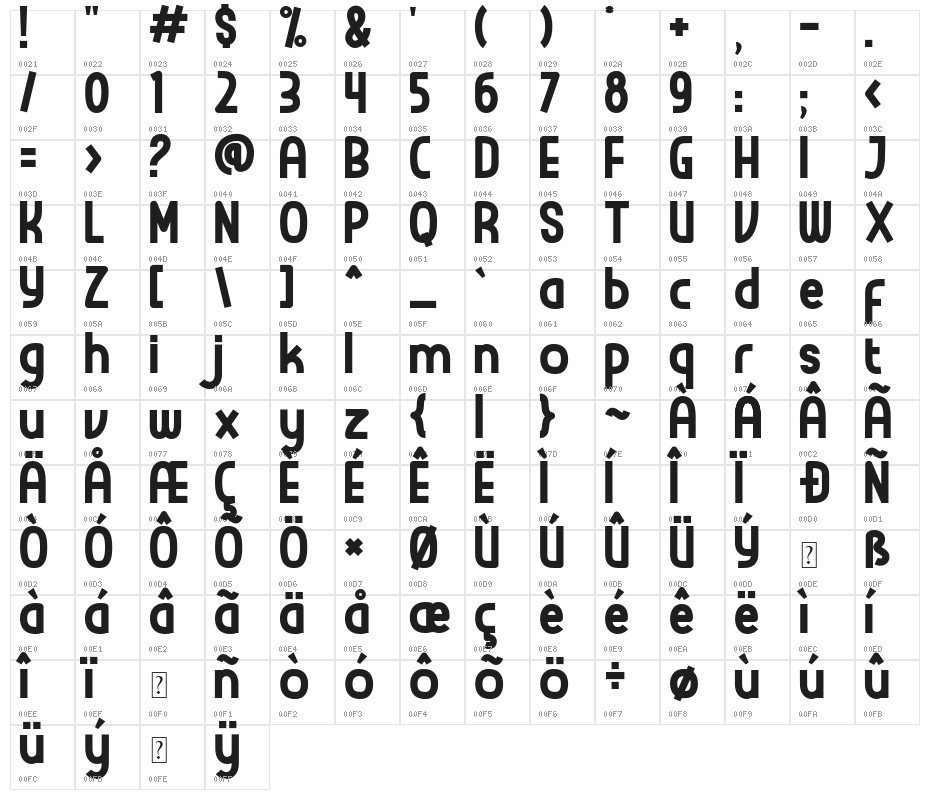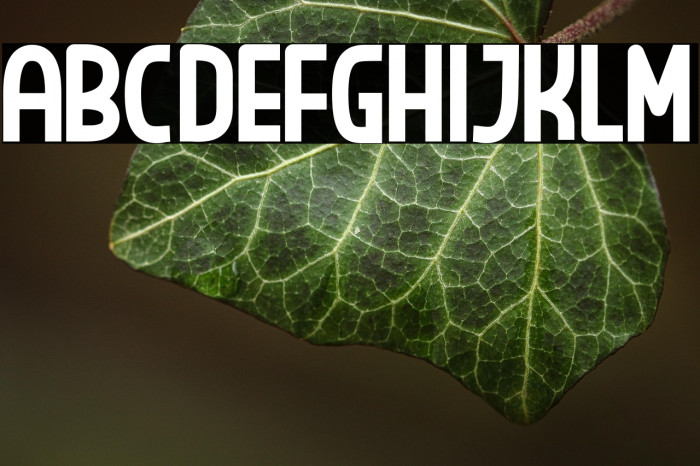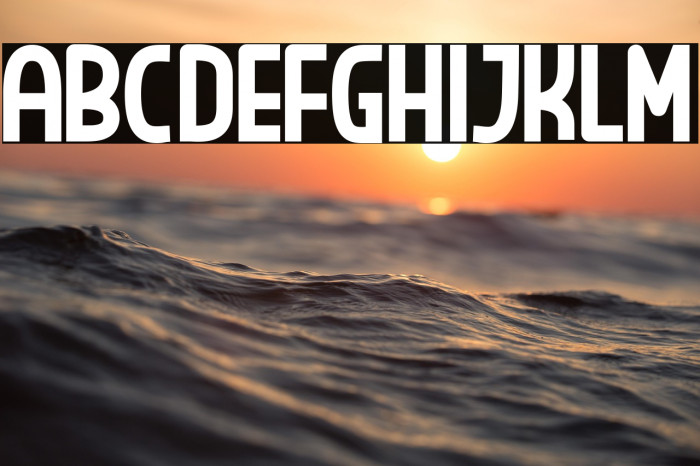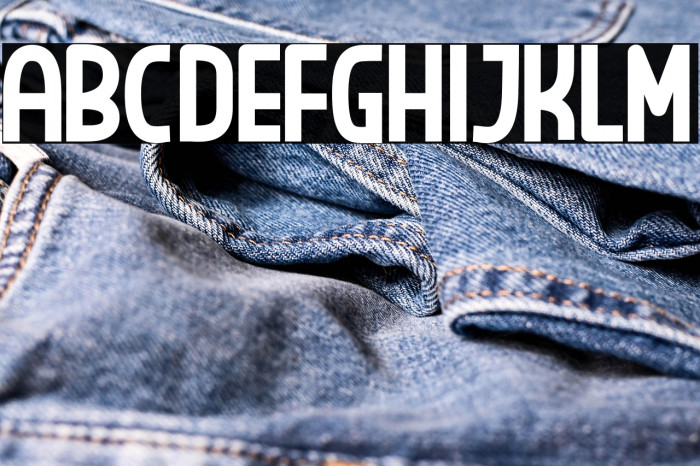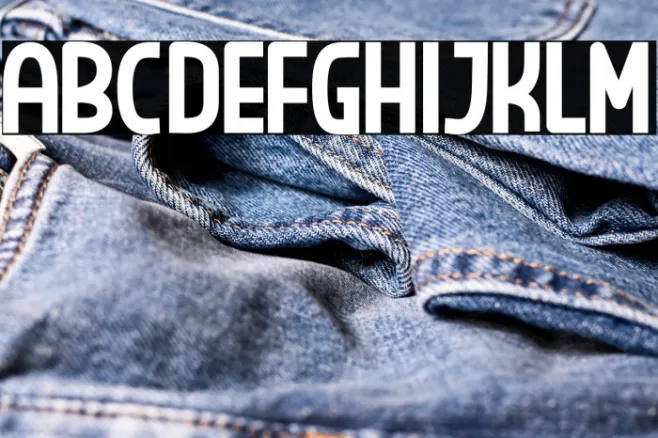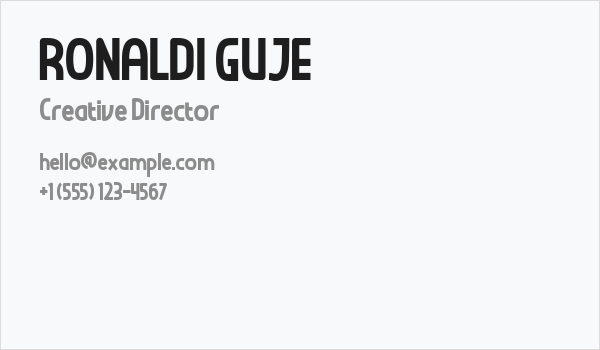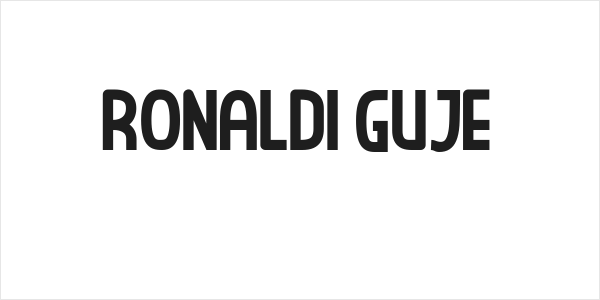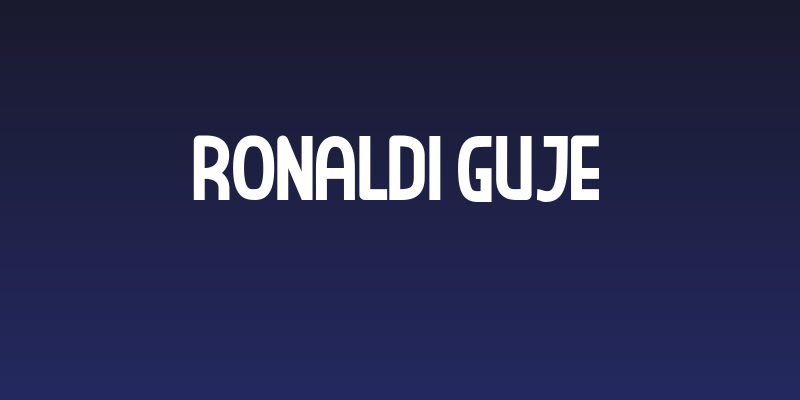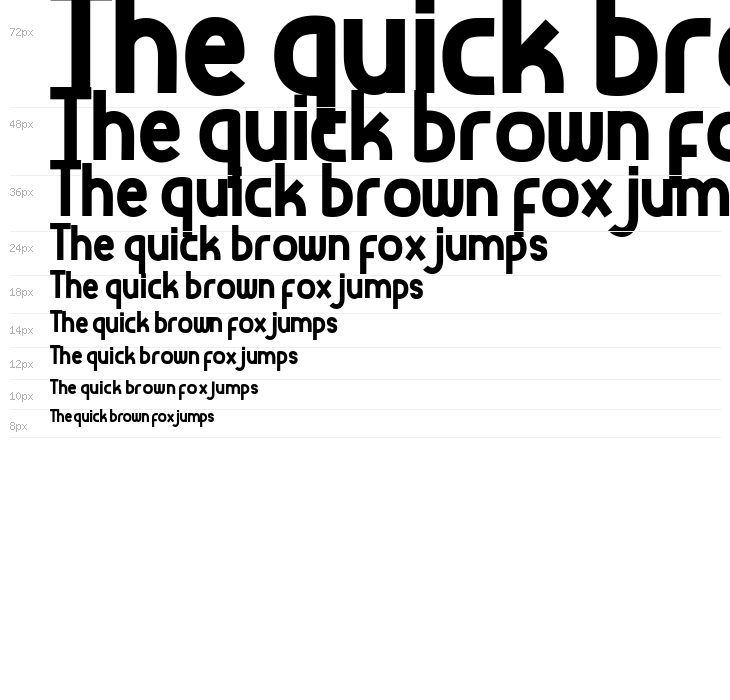
RONALDI GUJE Font
RONALDI GUJE Description
This font features a bold and modern design with a strong geometric structure. The uppercase letters are tall and slightly condensed, giving a sense of authority and presence. The lowercase letters maintain a consistent style, with rounded edges that soften the overall appearance. Numbers are clear and legible, matching the boldness of the alphabet characters. Special characters are well-integrated, ensuring versatility in various design contexts. The font's uniform stroke width and minimal contrast contribute to its clean and contemporary look, making it suitable for a wide range of applications.
| Proposed Projects | Ideal for branding, headlines, posters, and digital media where a strong, modern presence is desired. |